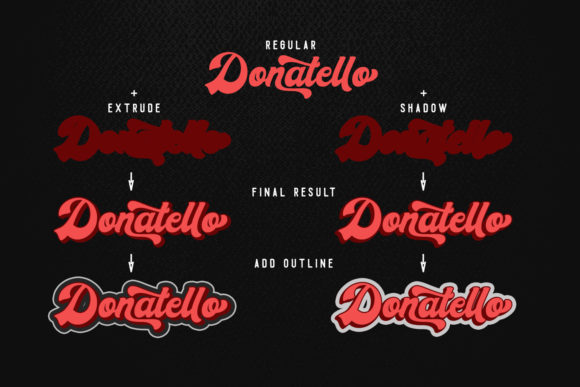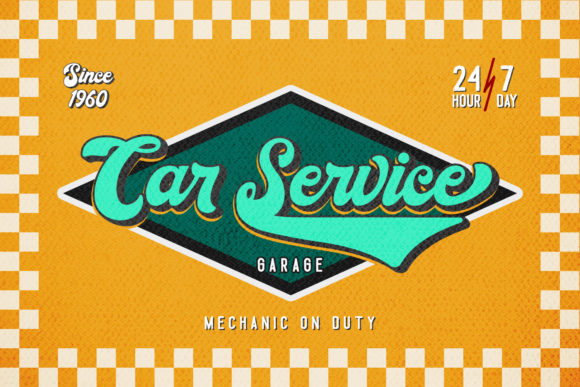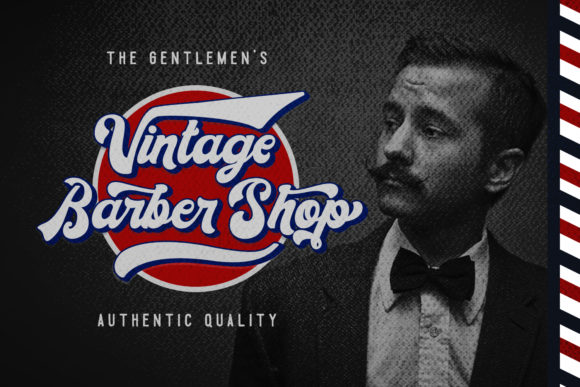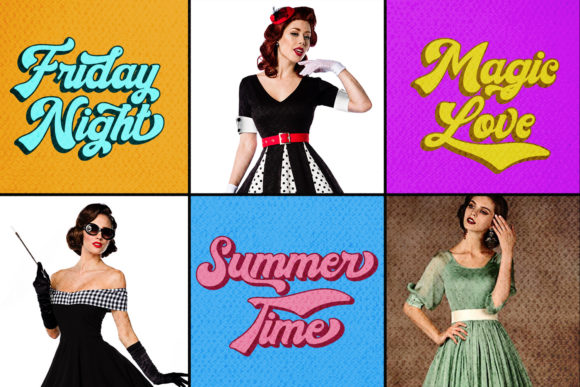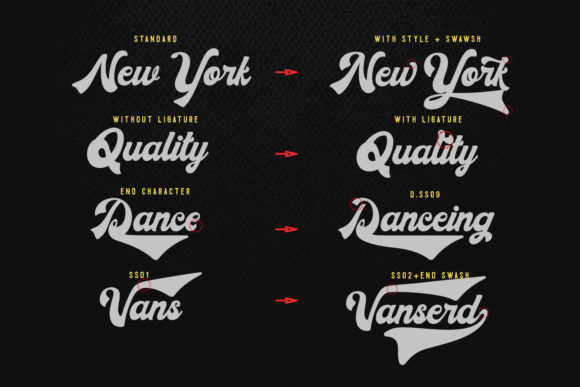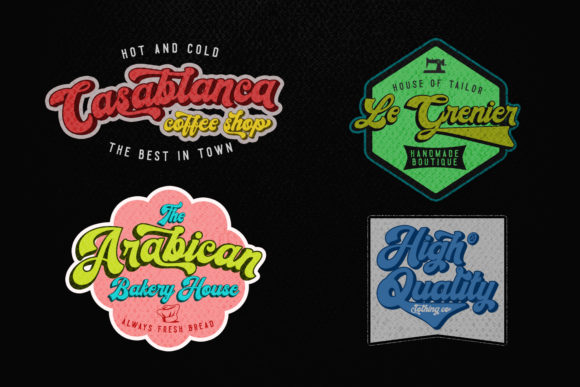
The Donatello Font: A Playful, Vintage Treasure for Your Designs
I’ll never forget the time I was working on a project for a client who wanted a retro-themed brochure. I had all the graphics and content ready, but something was missing – the perfect font. I scoured the internet, tried out dozens of fonts, but none of them seemed to capture that nostalgic vibe I was looking for. That’s when I stumbled upon the Donatello font. It was love at first sight! 💕
Donatello feels playfully nostalgic and delivers an incredible vintage aesthetic. This handwritten font is perfect for adding a special retro touch to any design idea you can think of. In this article, I’ll share my experience with Donatello, its features, and how to make the most of it in your designs.
An Honest Review of Donatello Font
What I Love About Donatello ✨
- ✅ The vintage aesthetic is on point – it’s perfect for creating retro-themed designs that pop!
- ✅ The handwritten feel is smooth and fluid, making it easy to read and visually appealing.
- ✅ Donatello comes with a range of OpenType features, glyphs, and stylistic alternates, giving you plenty of creative options.
- ⚠️ Some characters may not work well in all contexts, so it’s essential to test the font thoroughly.
- ⚠️ The font may not be suitable for very small text sizes or low-resolution images.
The Story Behind Donatello Font
Donatello was created by a talented font designer who drew inspiration from vintage typography and handwriting. The designer’s goal was to create a font that would evoke a sense of nostalgia and playfulness, while still being legible and versatile. The result is a font that’s perfect for a wide range of design projects, from retro-themed posters to modern branding materials.
| Font Name | Donatello Font |
| Author | madeDeduk |
| What is the best way to use Donatello font? | Donatello font is perfect for designs that require a retro or vintage touch. Use it for posters, brochures, branding materials, and more. |
| Is Donatello font suitable for body text? | While Donatello font is beautiful, it’s best used for headlines or short paragraphs. For body text, consider using a more traditional font. |